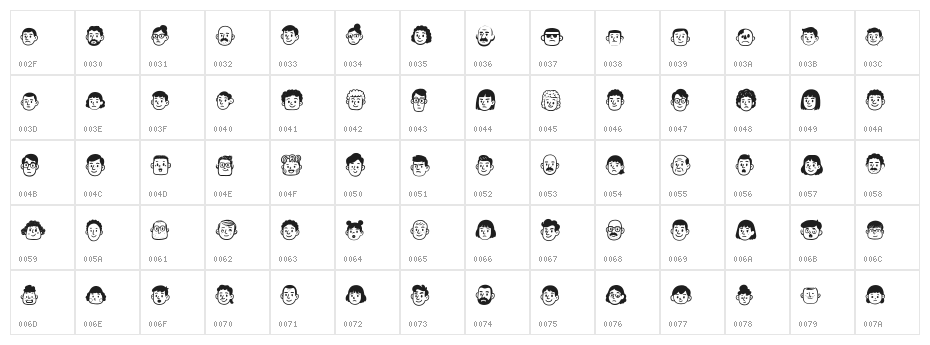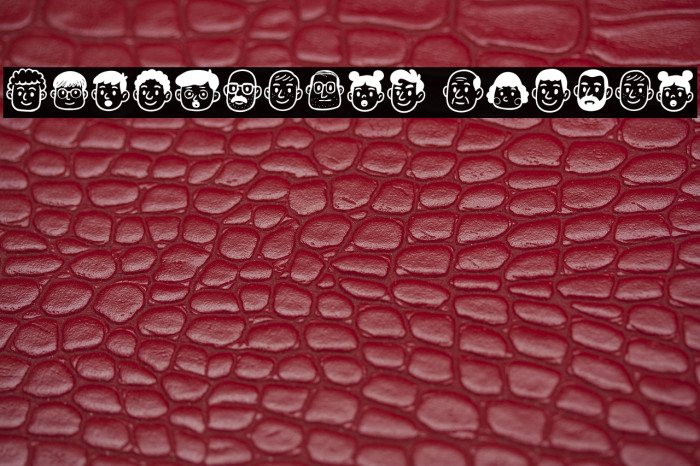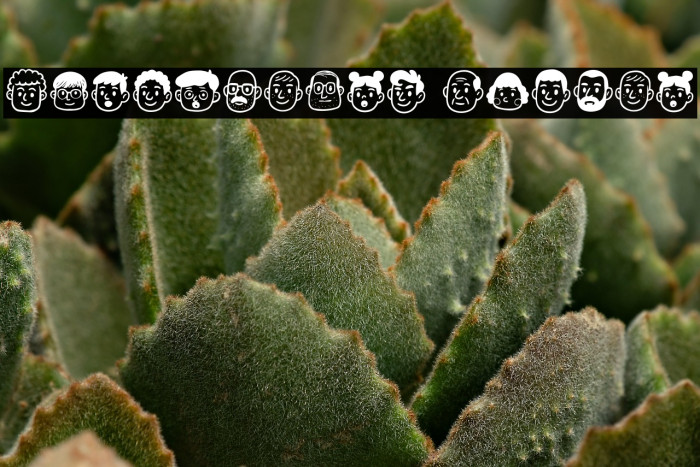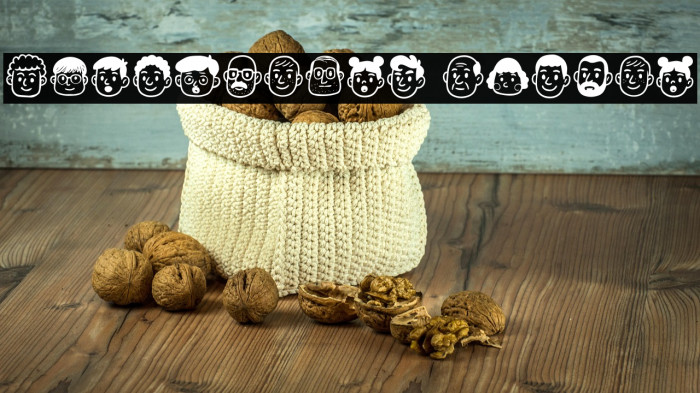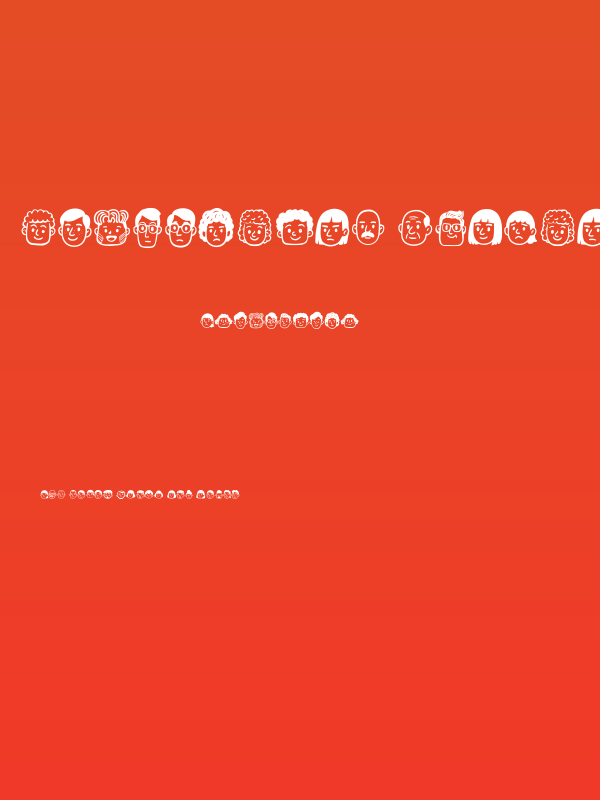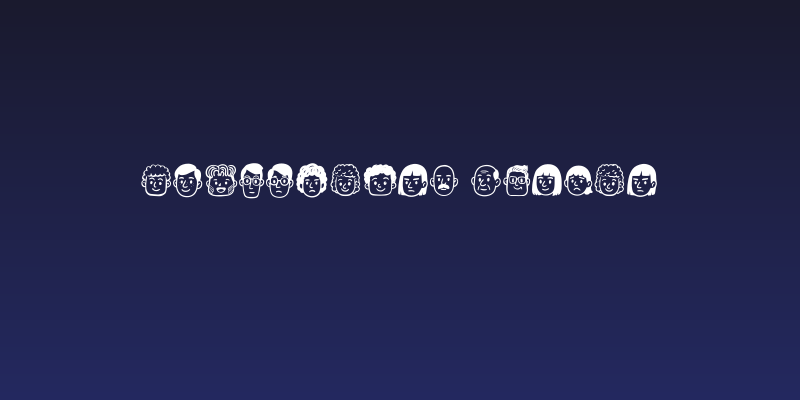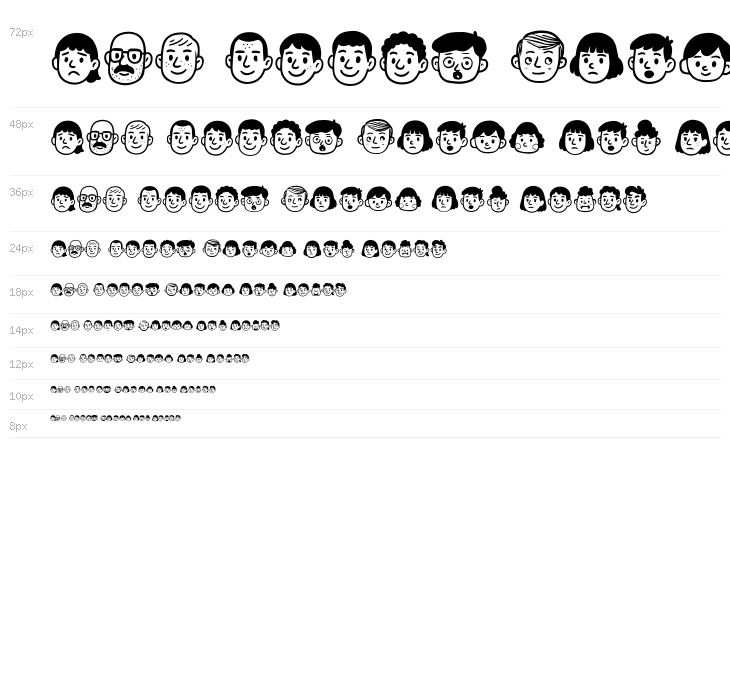
Blockheads United Font
Blockheads United Description
A playful and illustrative set of hand-drawn cartoon faces, each with unique expressions and hairstyles, rendered in bold black lines with a consistent, rounded style. The characters are diverse in appearance, emphasizing individuality while maintaining a cohesive visual language.
Overall StylePlayful, Decorative, Hand-drawn
Use CaseIllustrations, Branding, Posters, Educational Materials
Proposed ProjectsChildrenÒ€ℒs books, character design, posters, educational materials, playful branding, comics.